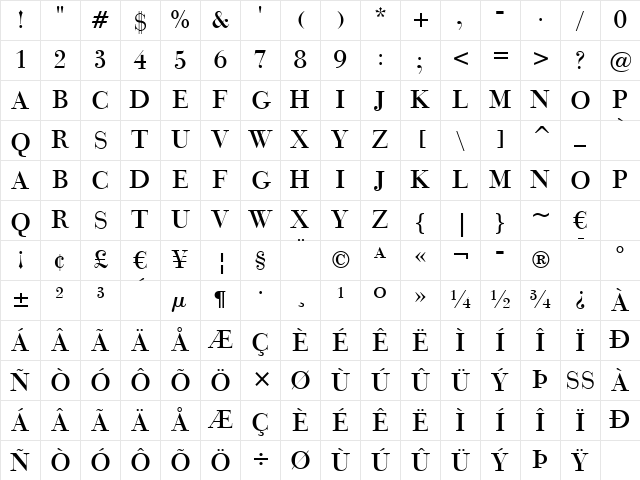
BauerBodni Titl2 BT Titling No.2
Style: Titling No.2
Design Context for BauerBodni Titl2 BT
BauerBodni Titl2 BT is a composed and adaptable typeface that performs quietly and consistently across a wide range of design contexts.